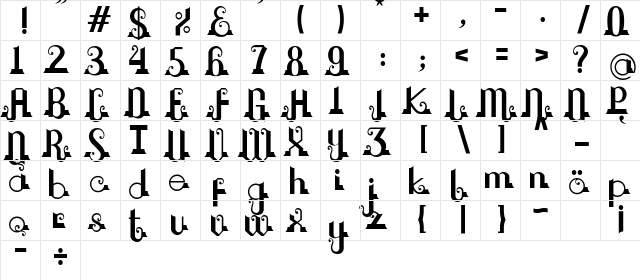
Chouphie Regular
Design Context for Chouphie Typeface
Chouphie is a composed and adaptable typeface that performs quietly and consistently across a wide range of design contexts.